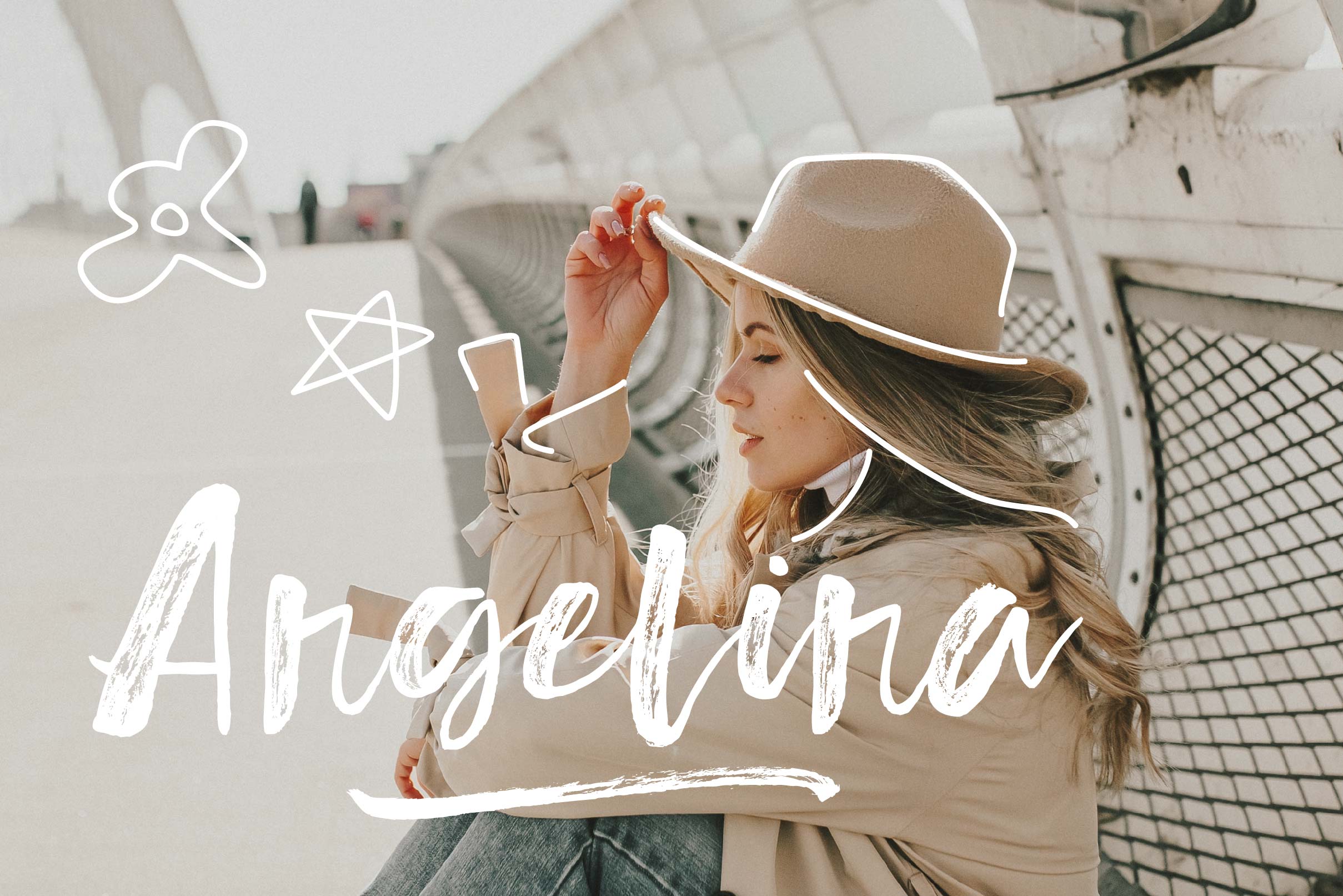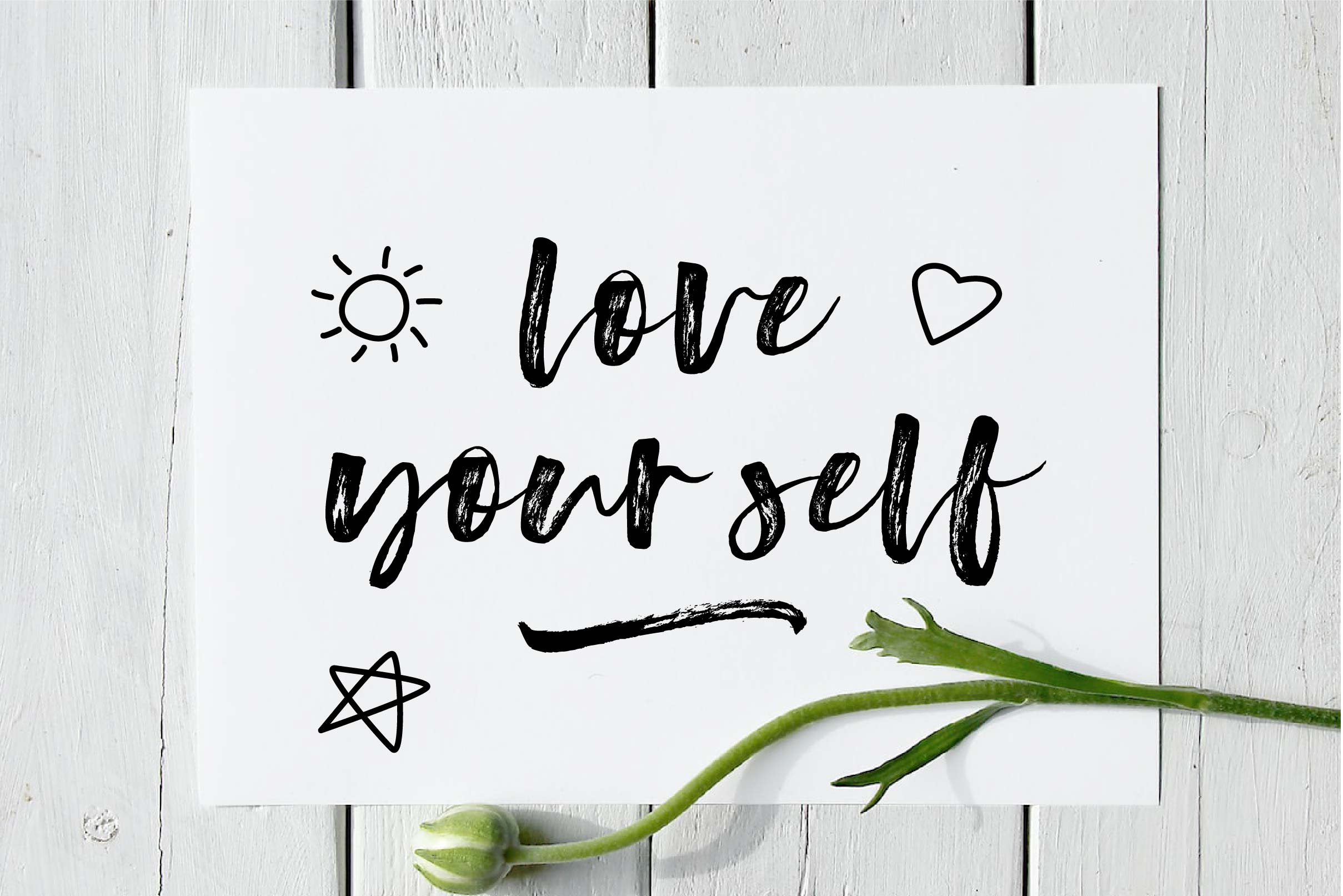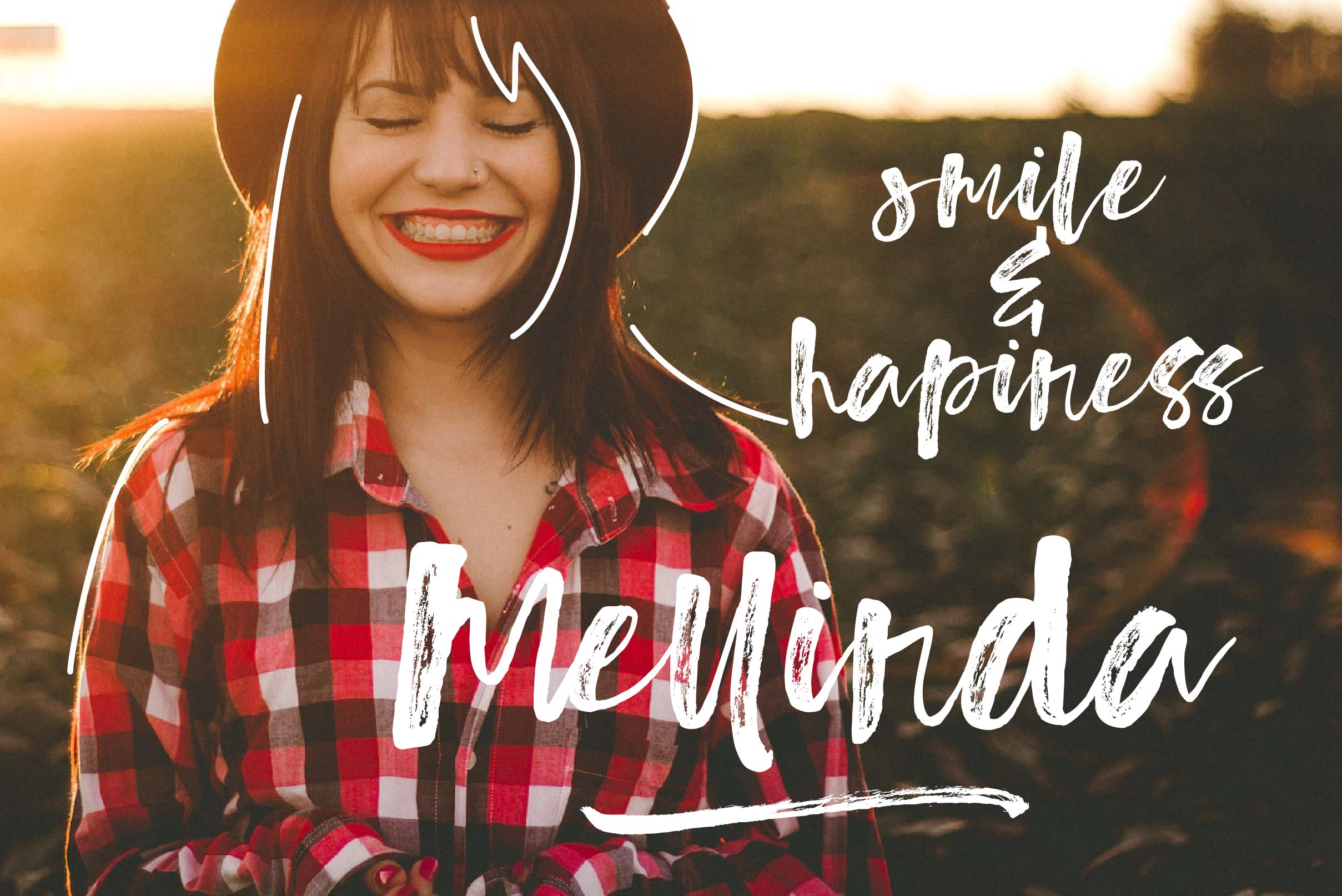
Calystine Font
Calystine Script Font is a cute script font. It has a classy, elegant, and modern look that can be used for logos, branding, cosmetic tube, design flyer, business card, invitations, stationery, wedding designs, social media posts, and much more!